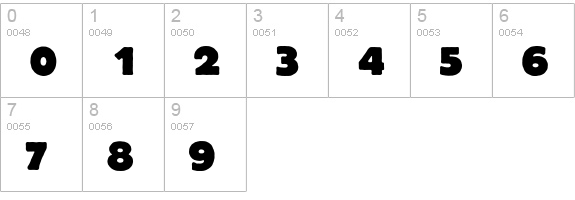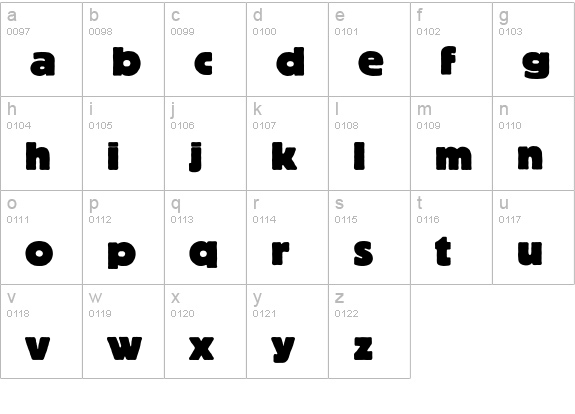
Block Berthold R Font Details
Block Berthold R is a modern and stylish font that exudes sophistication and elegance. Its bold letterforms and clean lines make it perfect for a wide range of design projects, from branding to packaging to editorial design. The font's versatility allows it to be used in both digital and print applications, making it a must-have addition to any designer's toolkit. The best part about Block Berthold R is that it is completely free to download from FontsMarket.com. This means that you can start using this stunning font in your projects right away, without having to worry about any additional costs. With its timeless appeal and professional look, Block Berthold R is sure to make a statement in any design you create. Don't miss out on the opportunity to enhance your projects with the sleek and stylish Block Berthold R font. Download it for free today at FontsMarket.com and take your designs to the next level.